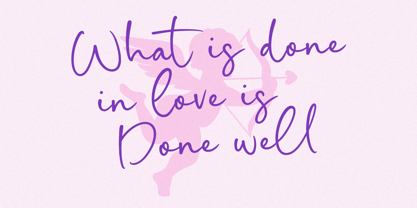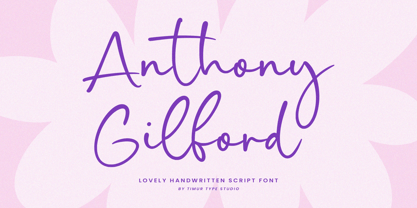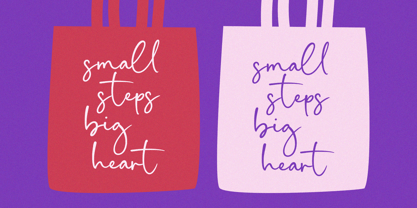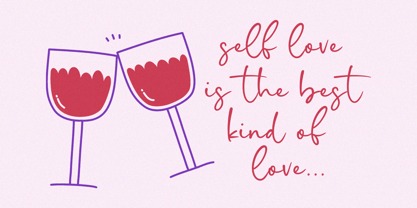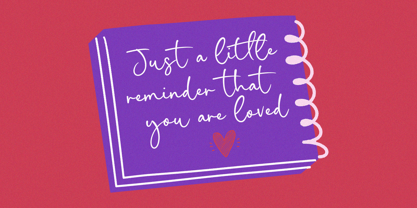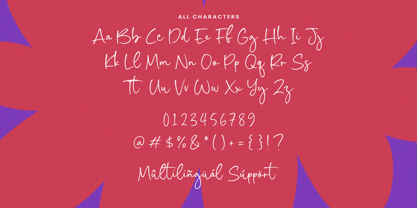
Anthony Gilford
by Timurtype
The Anthony Gilford Font Family was designed by Wara Sigit Tri Pamungkas and published by Timurtype. Anthony Gilford contains 1 styles. More about this family
Introduced by Timurtype Studio!
Anthony Gilford is a Lovely Handwritten Script Font
This font is a lovely handwritten script font exudes charm and elegance with its fluid, natural strokes and graceful curves. Ideal for invitations, logos, and projects, it brings a warm touch to any design.
Anthony Gilford Font also supports multilingualism
Designers: Wara Sigit Tri Pamungkas
Foundry: Timurtype